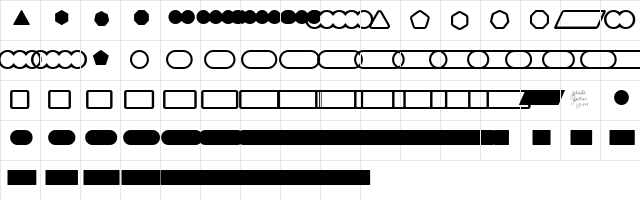
basic button Regular
Design Context for basic button Typeface
basic button is a composed and adaptable typeface that performs quietly and consistently across a wide range of design contexts.